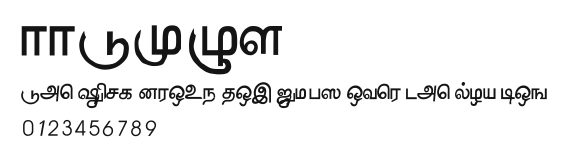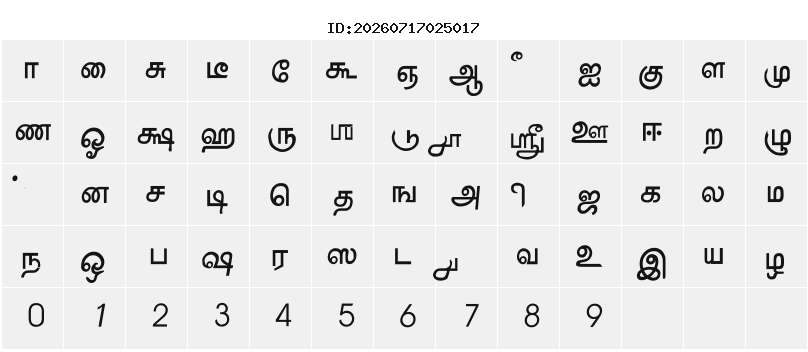
• Font Name: AATMZL
• Font ID: AATMZL
• Full Font Name: AATMZL
About AATMZL.ttf
AATMZL.ttf is a modern, elegant sans-serif font designed for ultimate readability and visual harmony. Perfect for branding, headlines, web design, and print materials.